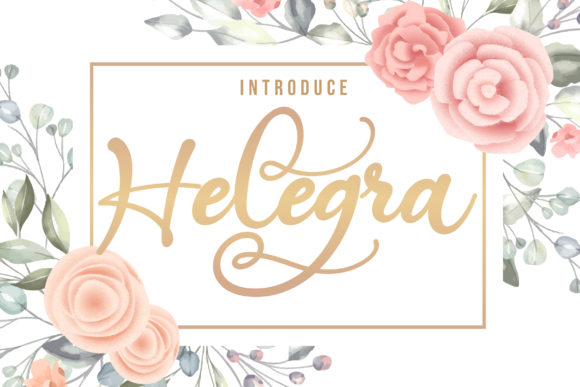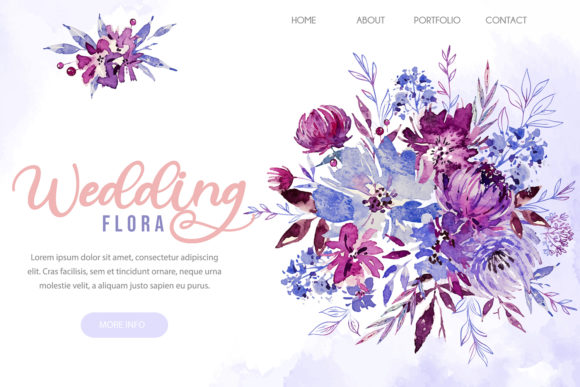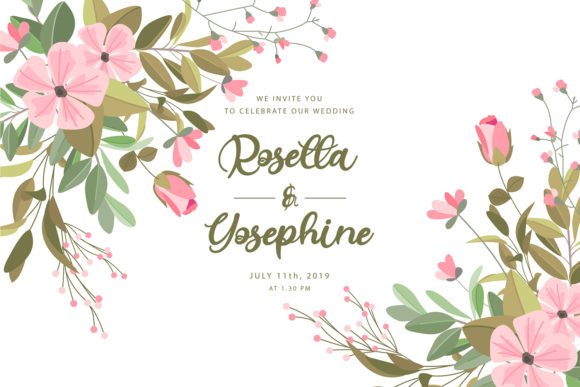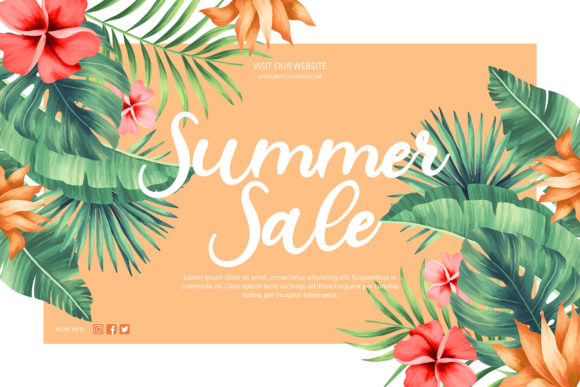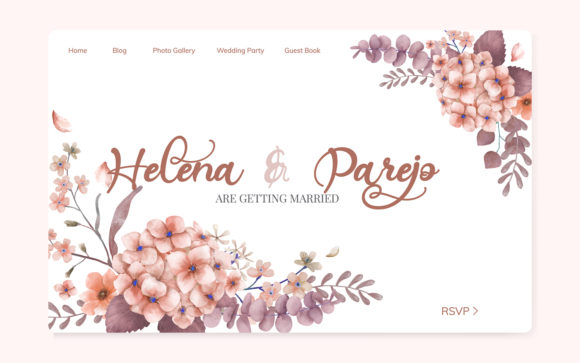
Helegra Font
About Helegra Font
Helegra is a beautiful calligraphy style font with a summery feel. Add energy and life to your design project with this charming font.